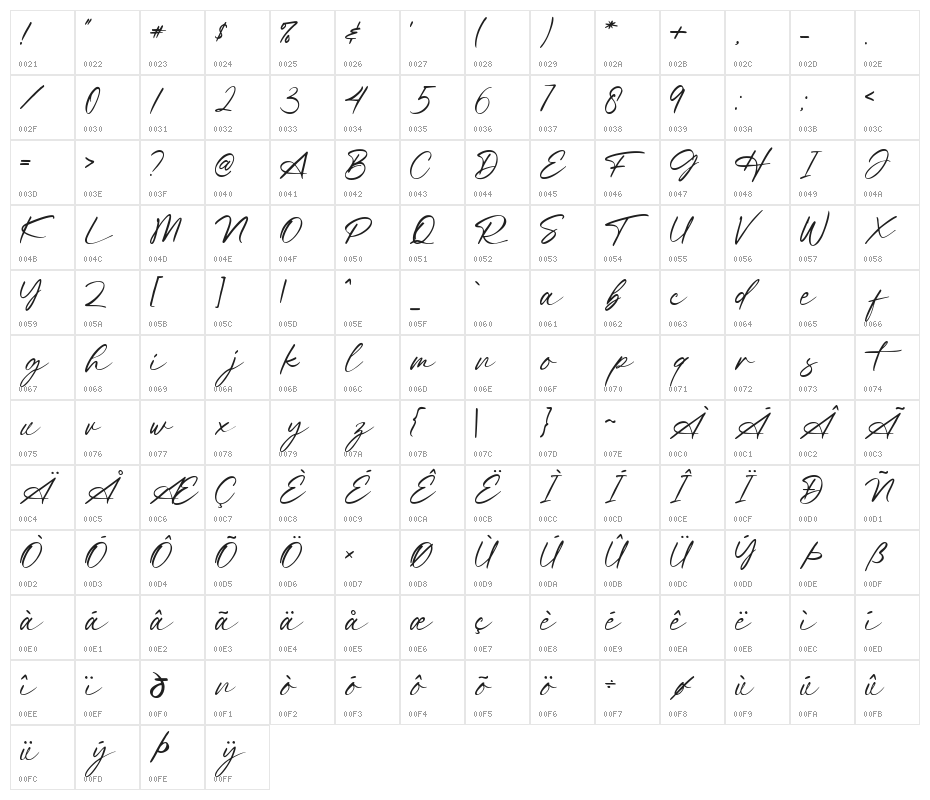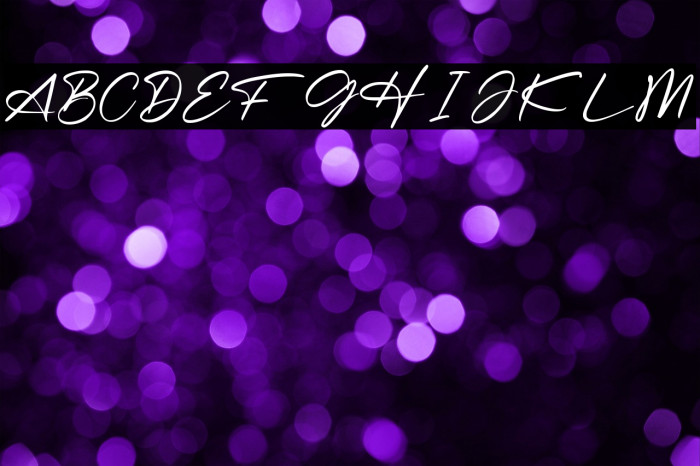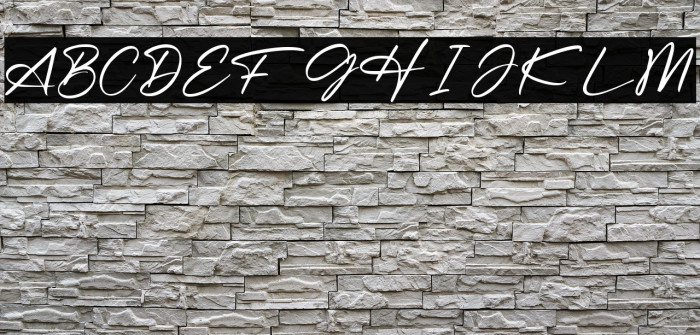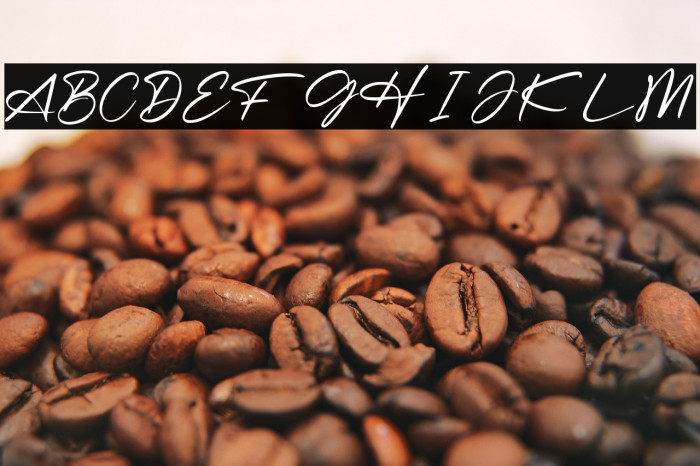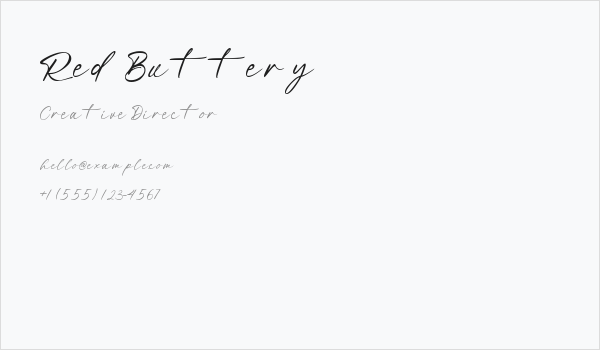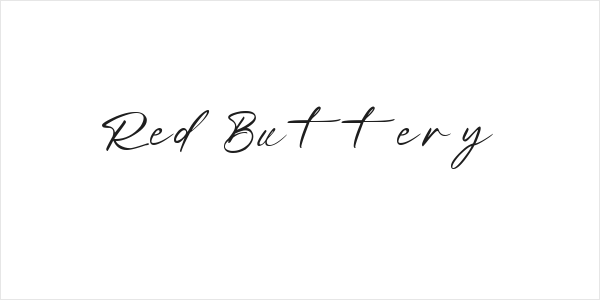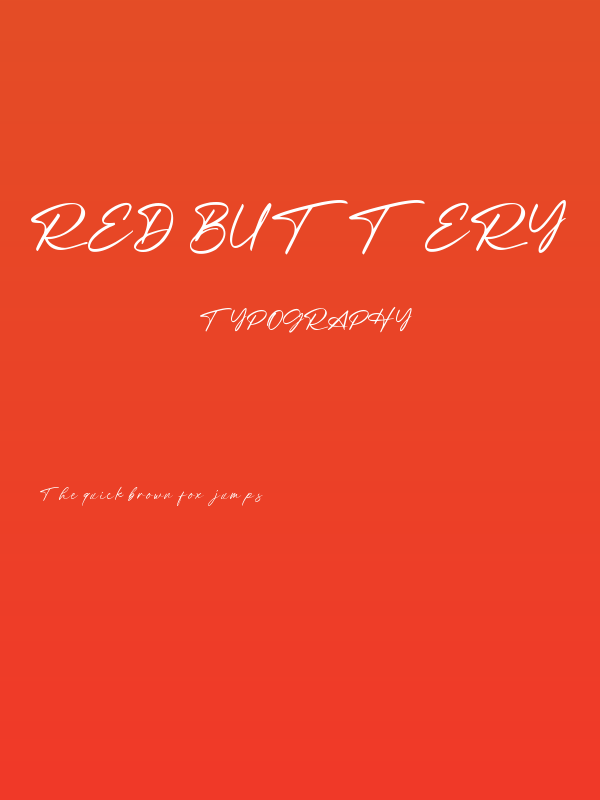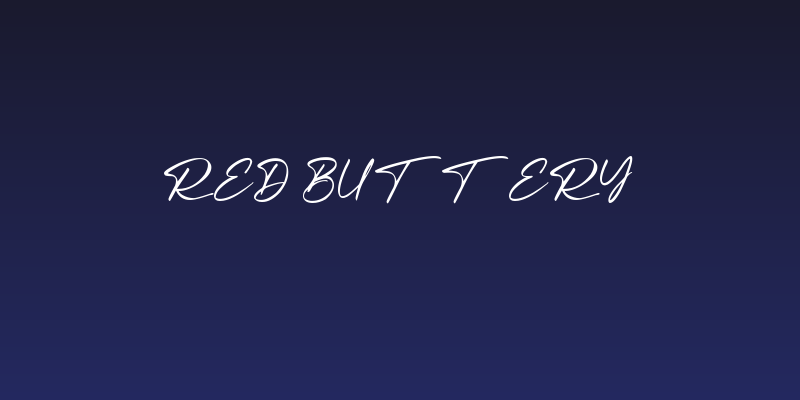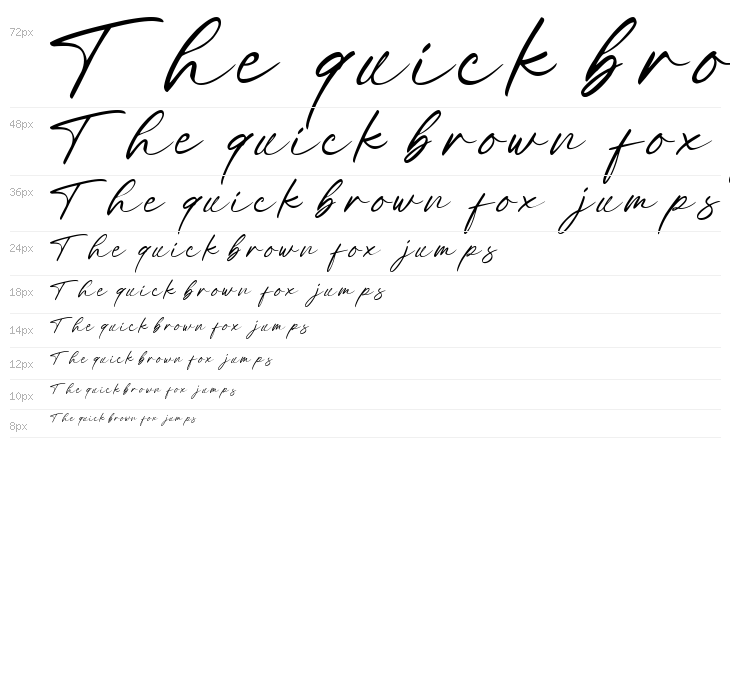
Red Buttery Font
Red Buttery Description
This font exudes a sense of elegance and fluidity, characterized by its cursive, handwritten style. The letters are connected in a smooth, flowing manner, giving it a personal and artistic touch. The uppercase letters maintain a consistent height, while the lowercase letters exhibit a slight slant, enhancing the natural handwriting effect. The numerals and special characters are crafted with the same attention to detail, ensuring a cohesive look across all characters. This font is perfect for projects that require a personal, yet sophisticated appearance.
| Overall Style | Elegant, Artistic |
| Proposed Projects | Ideal for wedding invitations, personal branding, greeting cards, and artistic projects. |